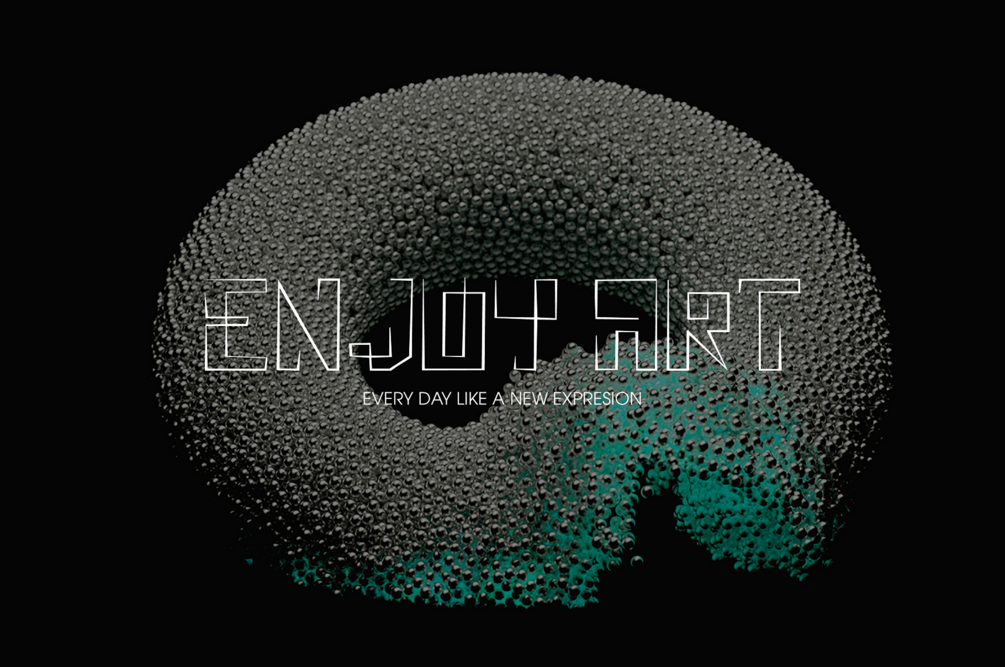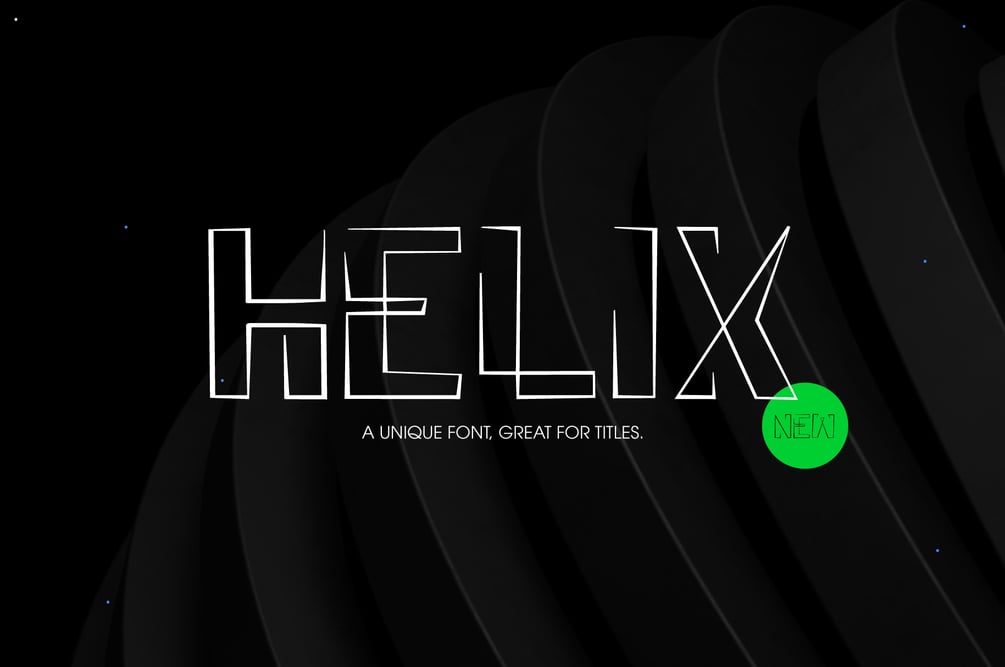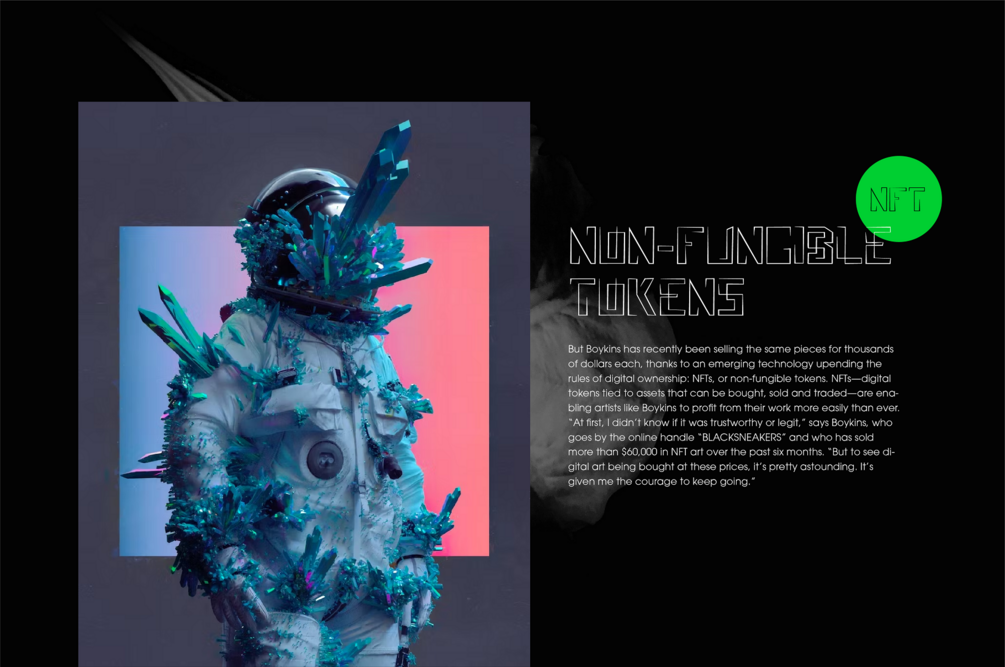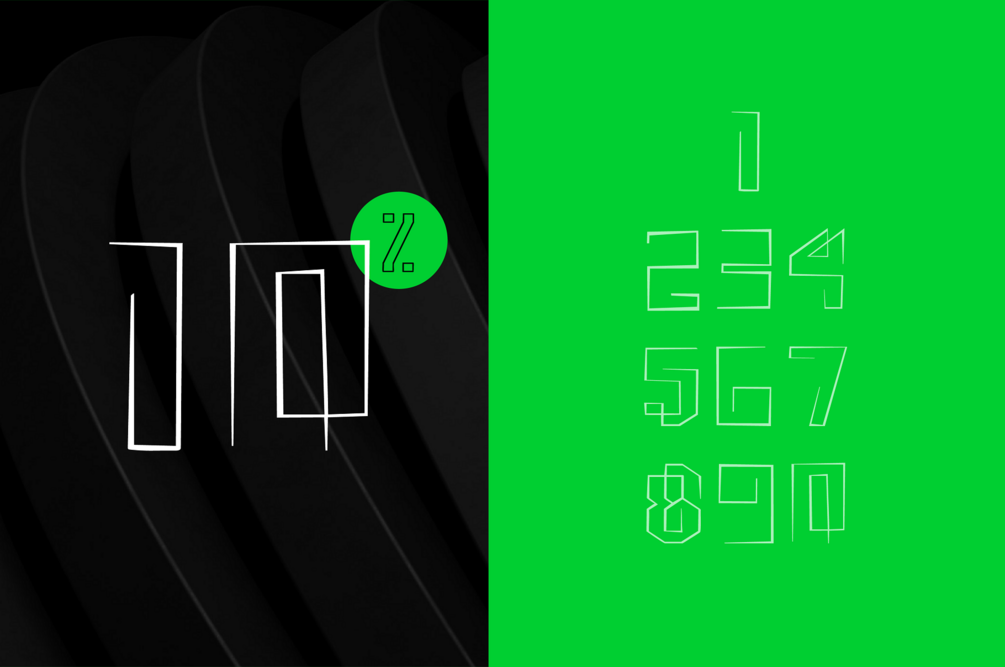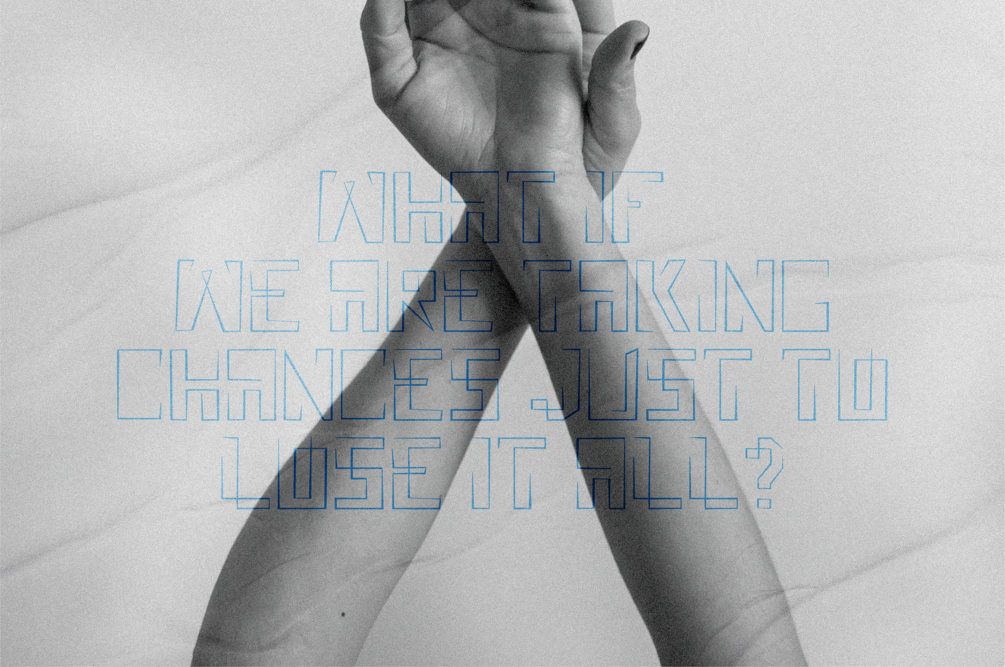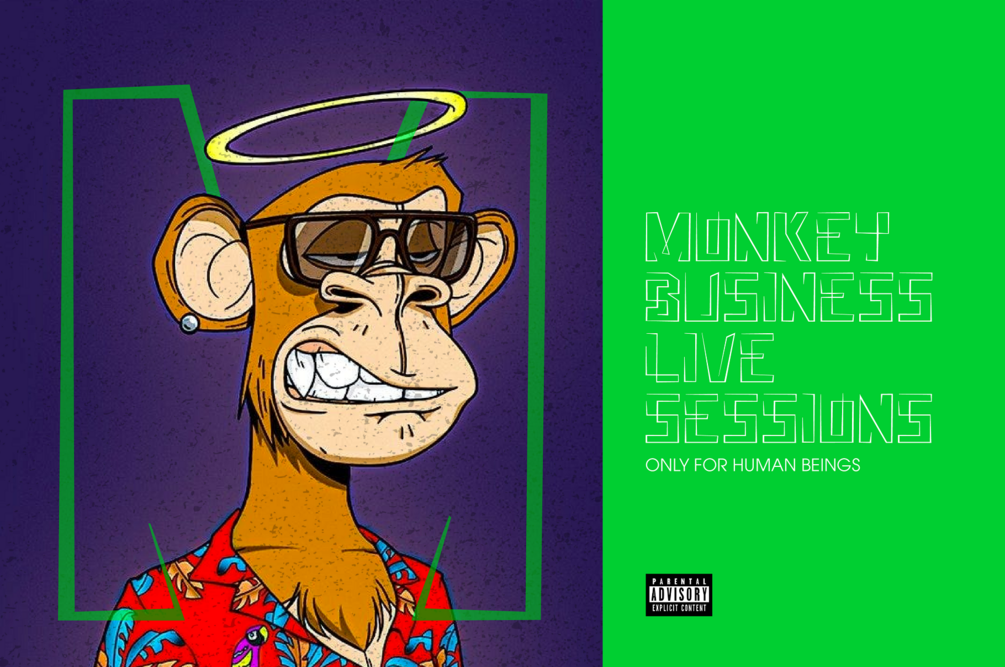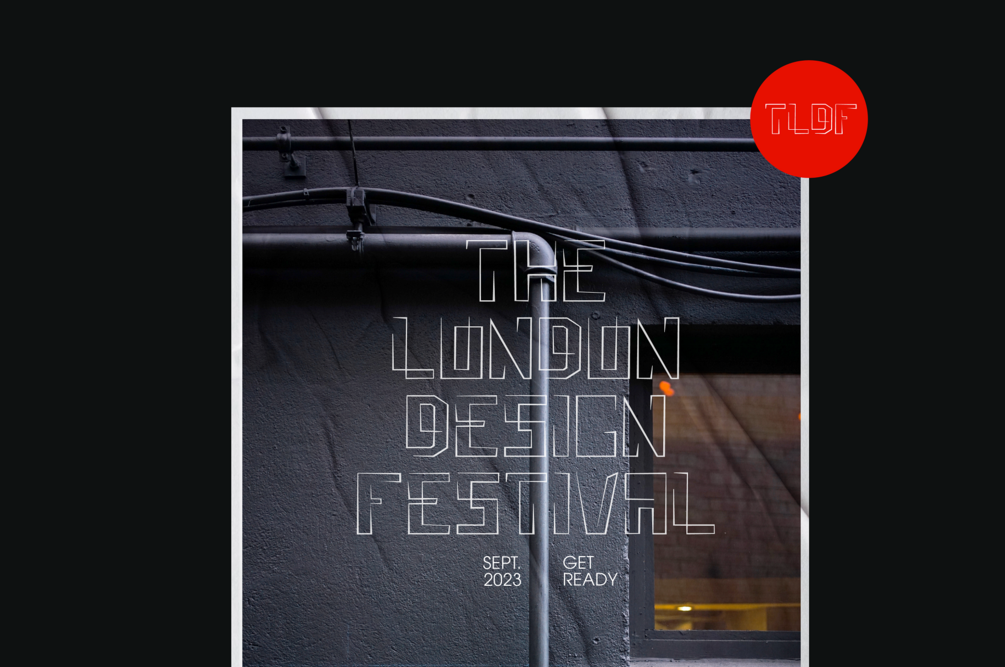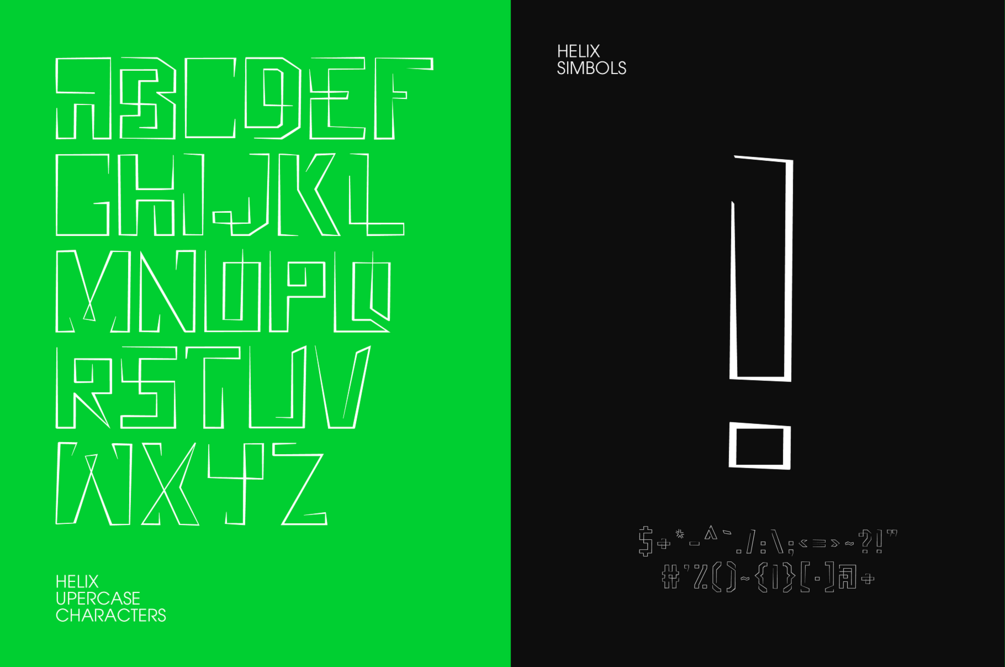
Helix - Single Line Display
Helix is a single line display typeface. Its eye catching design is bound to grab attention and turn heads. You can use Helix for editorials, posters, headlines, social media, packaging, and more. The font is fully kerned and is ready to be used out the box. If you're looking for an uncommon geometric typeface then Helix is for you!